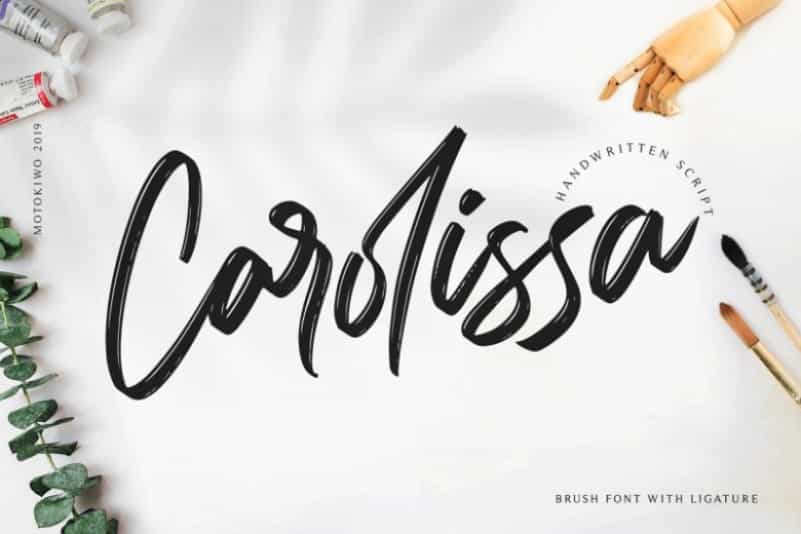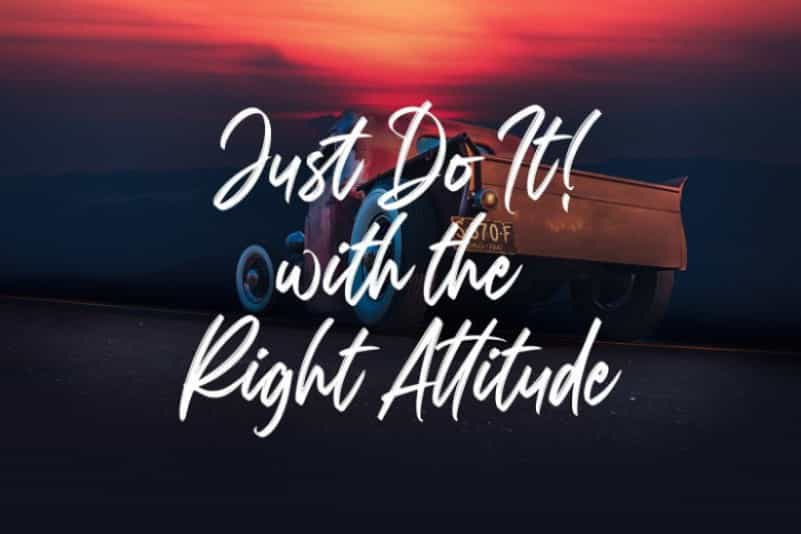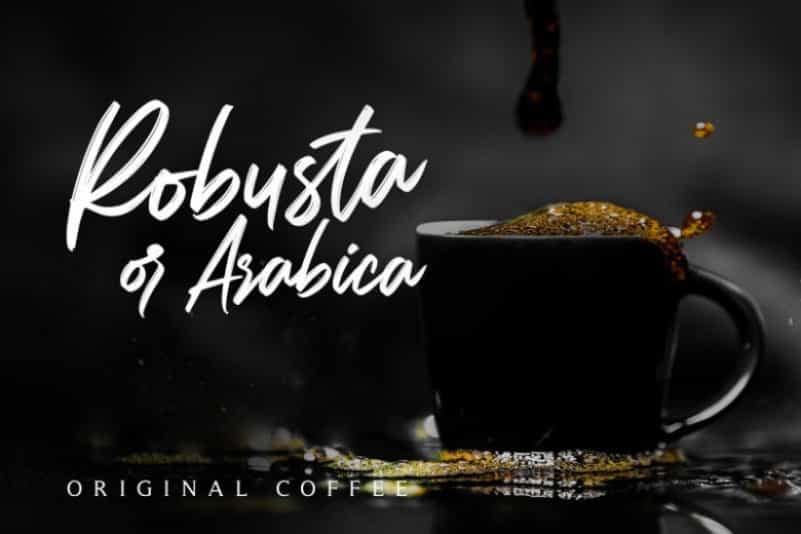
Introducing Carolissa Font is script brush font with handwriting style, it’s simple and class vintage style font that suitable for various design project. Carolissa comes with dynamic and spontaneous flow gesture, hence, this font will add more drama and human feel in to your design project. Carolissa supports multi-language, numerals, and punctuation. Carolissa supports a large number of stylistic alternates to make this font feel like natural and dancing baseline.